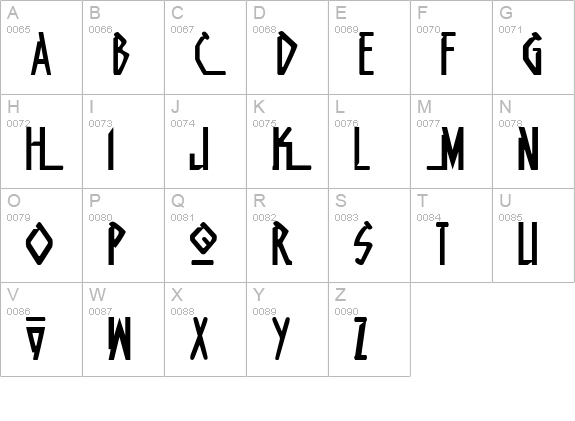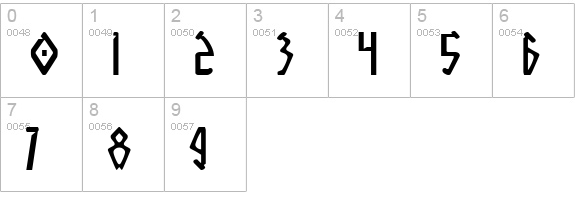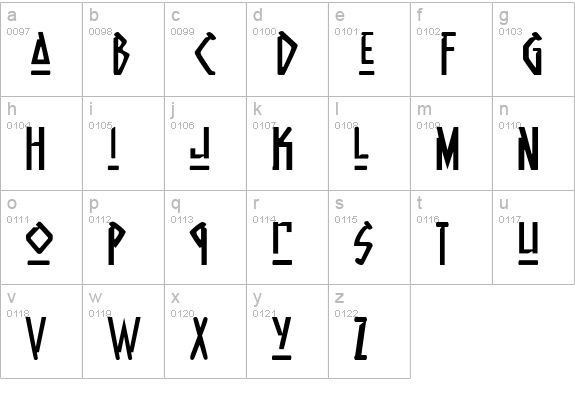
Introducing Native Alien font - a captivating and otherworldly typeface that seamlessly blends elements of nature with a touch of extraterrestrial charm. This unique font features intricate details and a mysterious aura, making it ideal for projects that require a sense of wonder and imagination. With its sleek lines and futuristic appeal, Native Alien font is perfect for a wide range of design applications, from branding to editorial design and beyond. Whether you're working on a science fiction novel cover or a cutting-edge website design, this font is sure to make a statement and captivate your audience. Best of all, Native Alien font is completely free to download at FontsMarket.com, allowing you to unleash your creativity without breaking the bank. Don't miss out on this opportunity to add a touch of cosmic inspiration to your projects - download Native Alien font today and let your imagination soar to new heights.